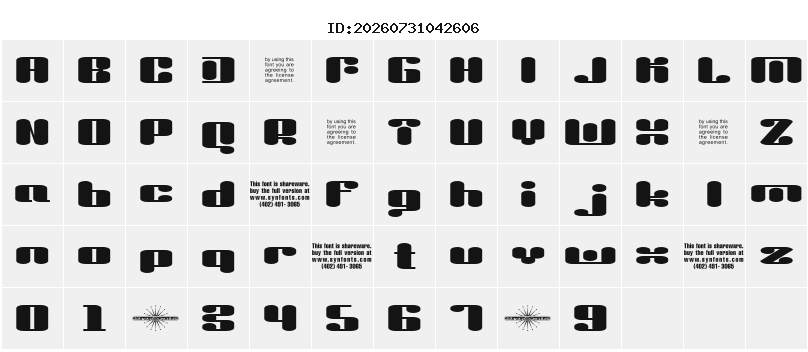
Liquid Sex Preview
• Font Name: Liquid Sex
• Full Font Name: Liquid Sex UNPAID DEMO
About Liquid Sex.ttf
Liquid Sex.ttf is a modern, elegant sans-serif font designed for ultimate readability and visual harmony. Perfect for branding, headlines, web design, and print materials.